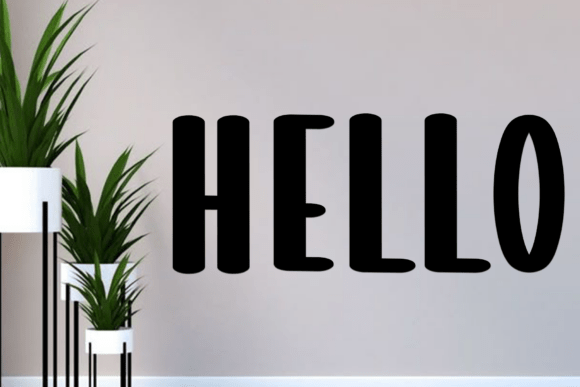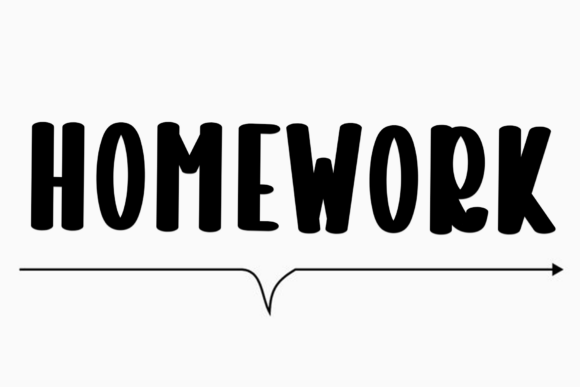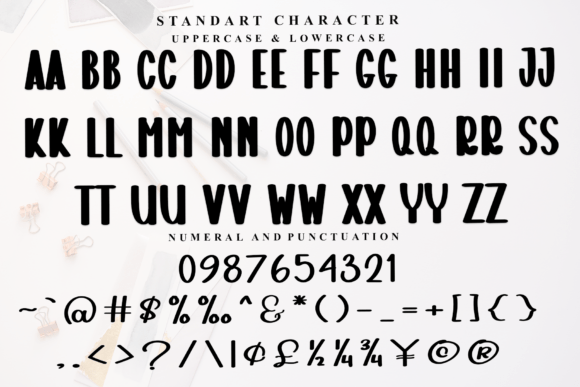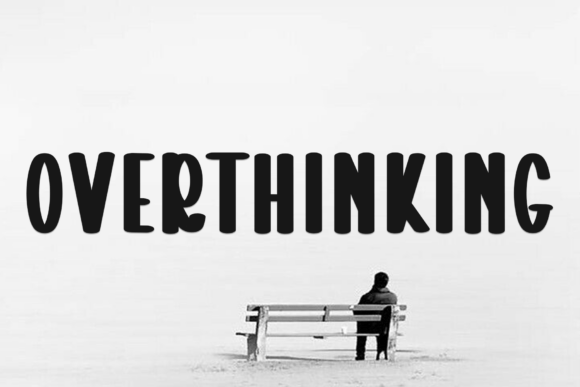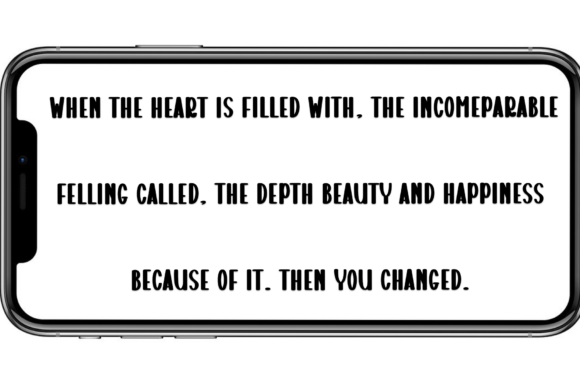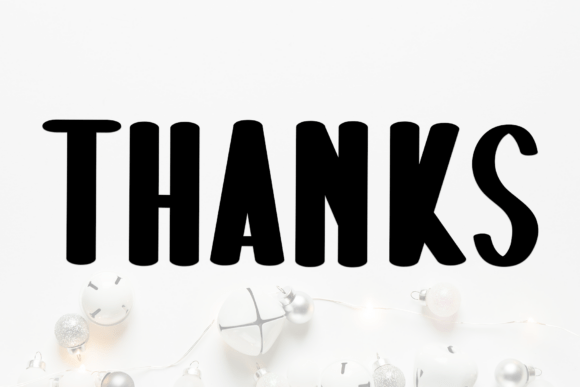
Introduction to Handmade Children Font
Do you remember the excitement of crafting handmade cards for your loved ones during the holiday season? The sparkles, the glitter, and the love that goes into creating something special for someone you care about? That’s exactly the feeling you’ll get when using the Handmade Children Font in your creative projects. This festive and merry typeface is designed to capture the magic of the holiday season and add a touch of whimsy to your designs.
As a designer, you’re always on the lookout for unique and high-quality design resources that can elevate your work and make it stand out from the crowd. The Handmade Children Font is a valuable addition to your design toolkit, perfect for greeting cards, gift tags, and other holiday-themed projects. With its transparent background and PUA-encoded glyphs, you’ll have access to all the amazing features of this font with ease.
Key Features of Handmade Children Font
- Unique, hand-drawn design ideal for creative projects and children’s materials.
- Includes a range of characters and symbols, including uppercase and lowercase letters, numbers, and punctuation.
- Perfect for use in children’s books, educational materials, and other creative projects requiring a playful and whimsical font.
Honest Review: Handmade Children Font
I recently had the chance to work with the Handmade Children Font and I must say it’s been a fantastic experience. The font is perfect for any creative project that requires a high-quality, child-friendly design. The transparent background is a huge plus, making it easy to use with any background image or color.
Here are some things that work well with this font:
- ✨ Unique and playful design that adds a personal touch to any project
- ✨ High-quality vector graphics that ensure crisp and clear text
- ⚠️ Limited character set, which may not be suitable for longer texts
- ⚠️ Some characters may not display properly on certain devices or operating systems
Overall, I’m impressed with the Handmade Children Font and would highly recommend it as a design resource for any project that requires a fun and playful feel. Just be aware of the limitations and plan accordingly.
Designing with Handmade Children Font
The Handmade Children Font is a unique and creative design resource that can add a personal touch to any project. This high-quality font is perfect for parents, educators, or anyone who wants to create a special and engaging design for their child. With a transparent background, you can easily place it over any image or background.
Getting the Most Out of Handmade Children Font
For best results, use the font in conjunction with a high-quality image or background. Experiment with different font sizes and styles to create a unique and eye-catching design.
The Handmade Children Font is perfect for:
– Creating custom invitations for kids’ parties
– Designing educational materials for children
– Making personalized gifts for kids
– Adding a personal touch to your child’s school or daycare projects